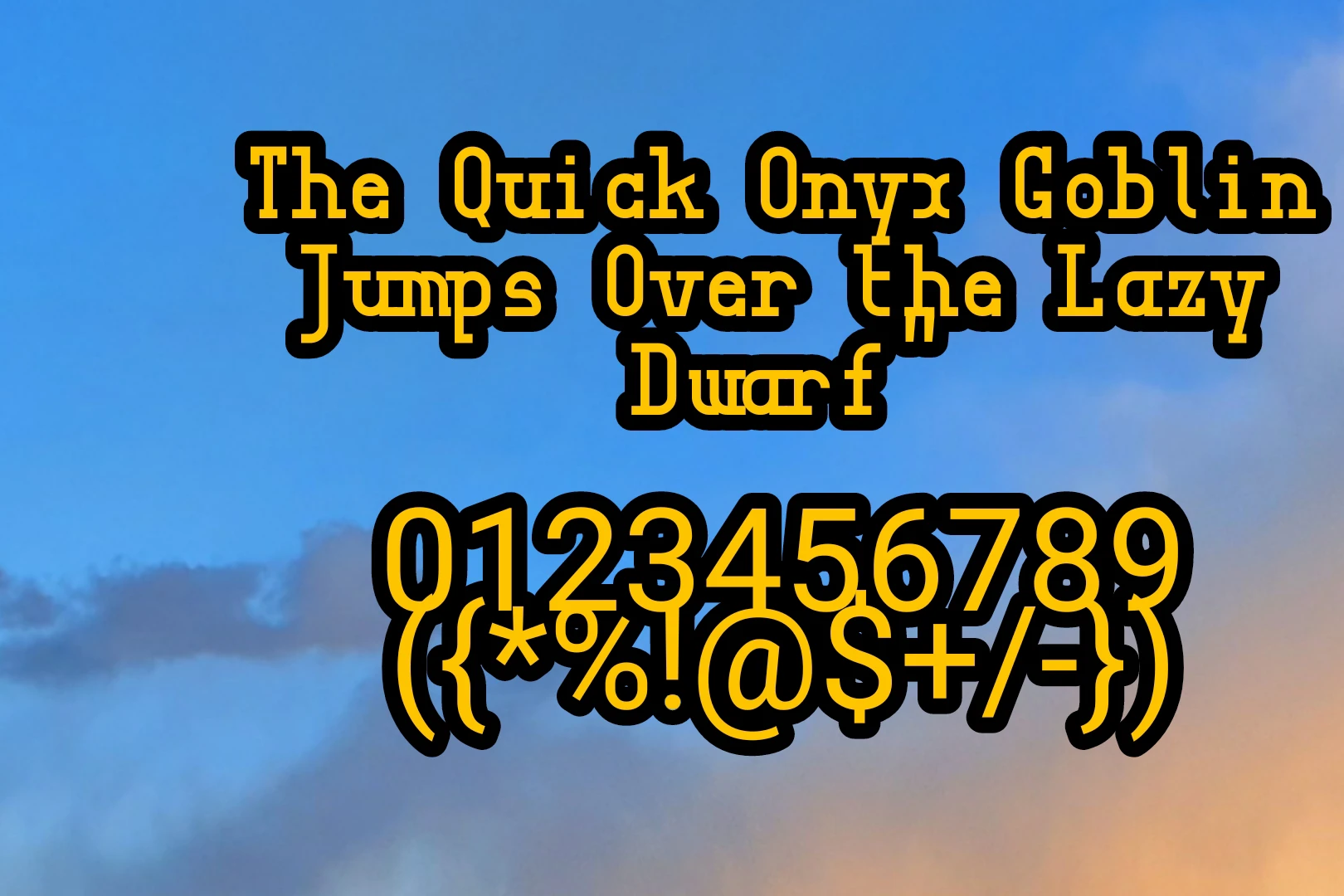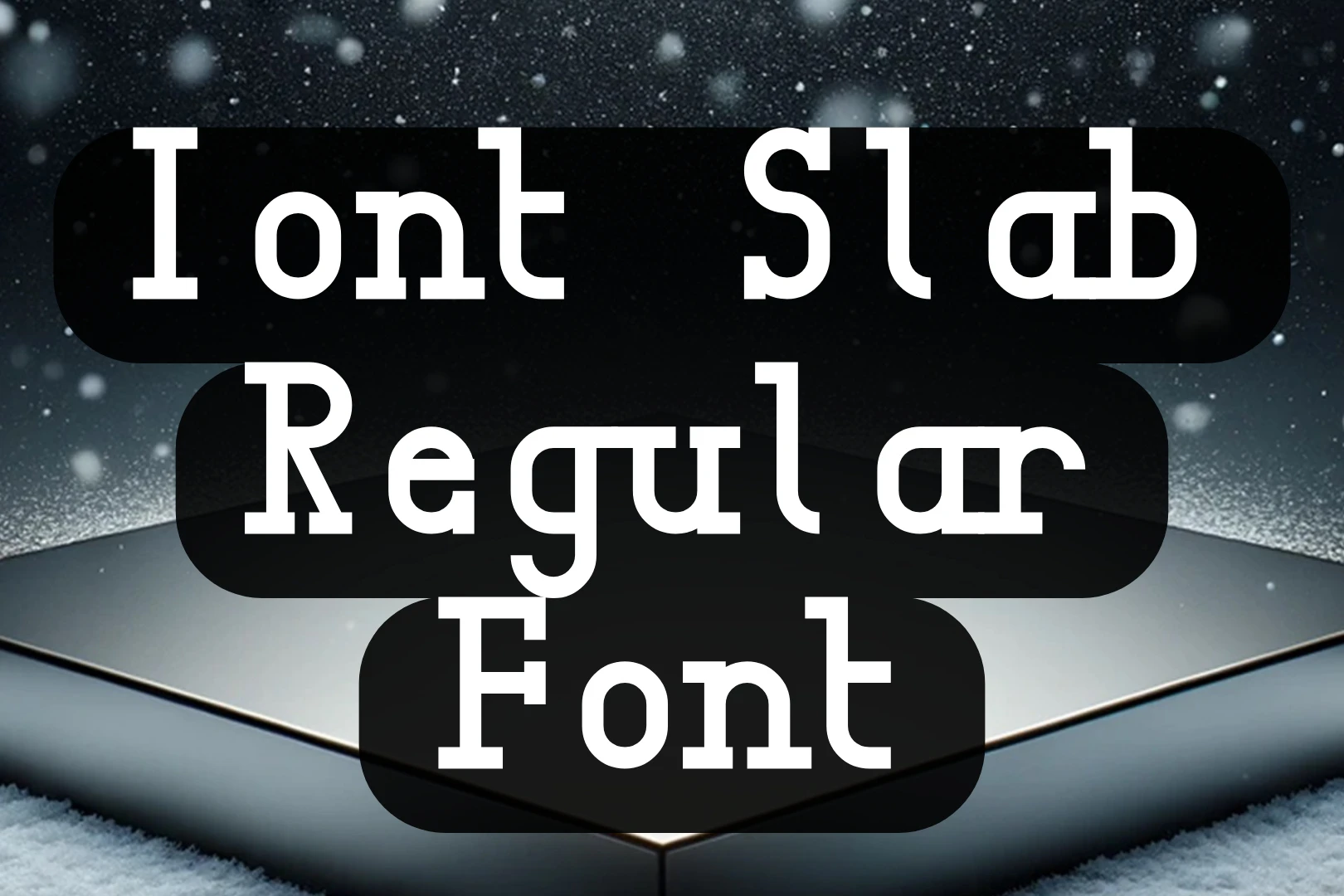
Iont Slab Regular Font, with its distinctive design and 58 carefully crafted characters, presents a unique typographic experience. Tailored for versatility, Iont Slab is well-suited for a range of applications, including blogs, thematic fonts, and logos.
Its exclusive encoding scheme adds a touch of individuality to your projects, making it a noteworthy choice for designers seeking both elegance and functionality. The designer of the Iont Slab Regular texture is attributed to “Copyright opipik 2013,”
Usage of Iont Slab Regular Font
Ideal for blogs, thematic fonts, and logos, it stands out with its 58 characters and unique encoding scheme. Whether you’re enhancing your blog’s visual appeal or creating a captivating logo, Iont Slab is a versatile font that adapts seamlessly to diverse design needs.